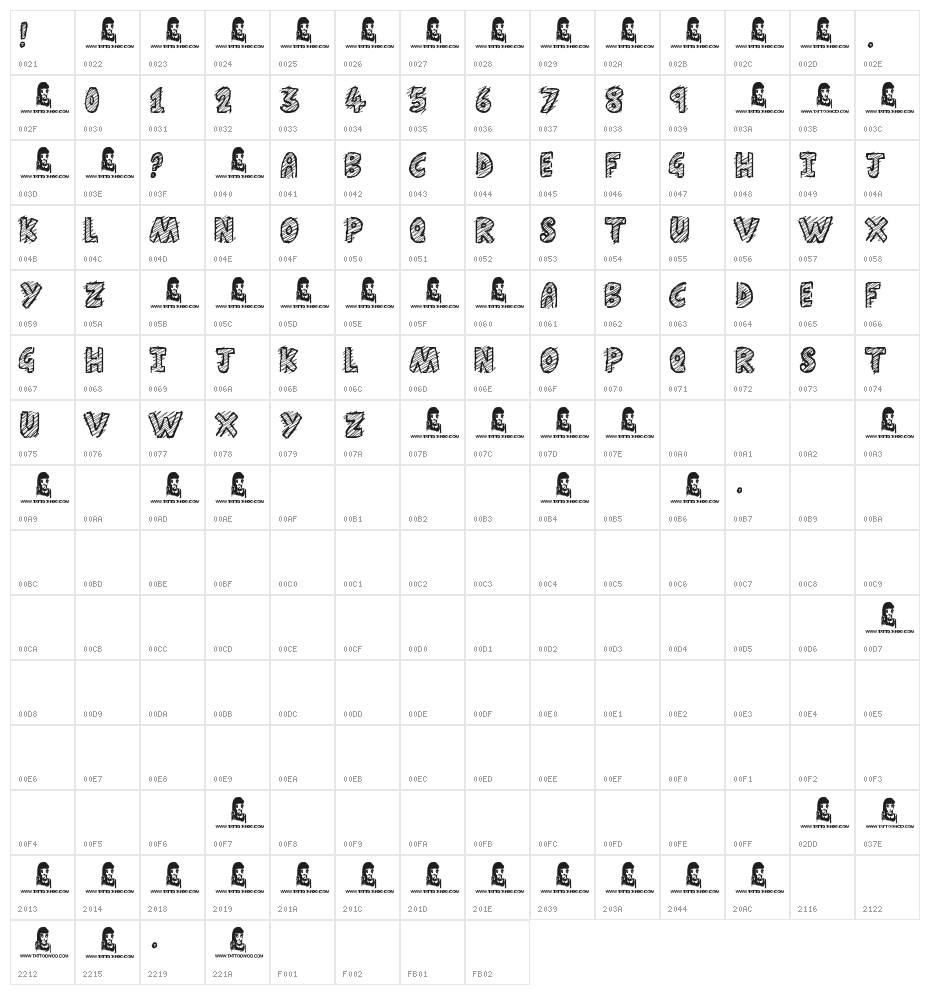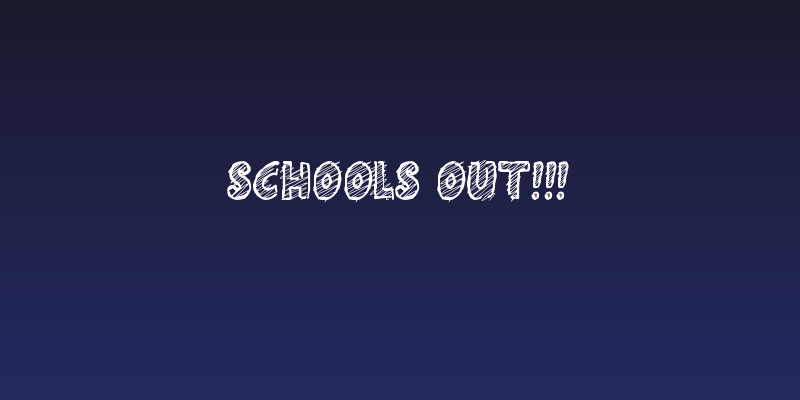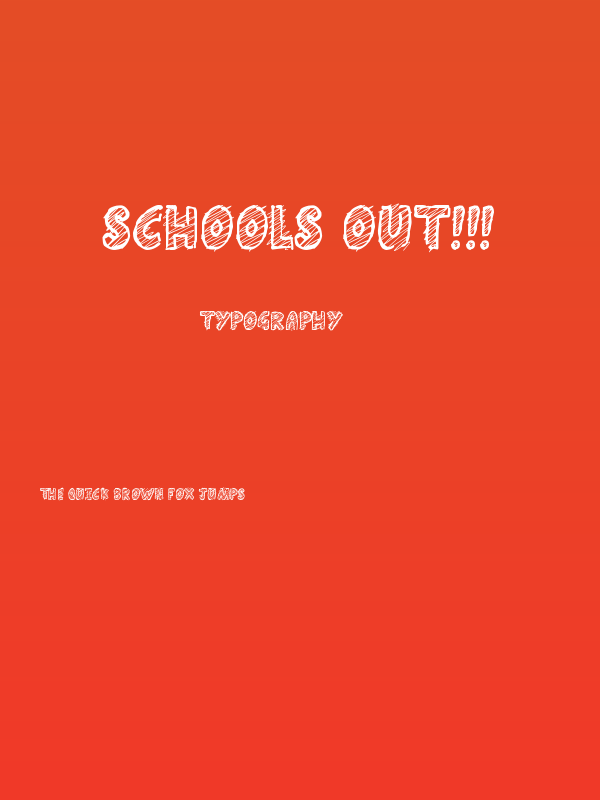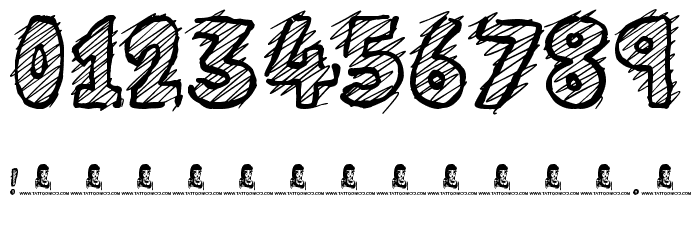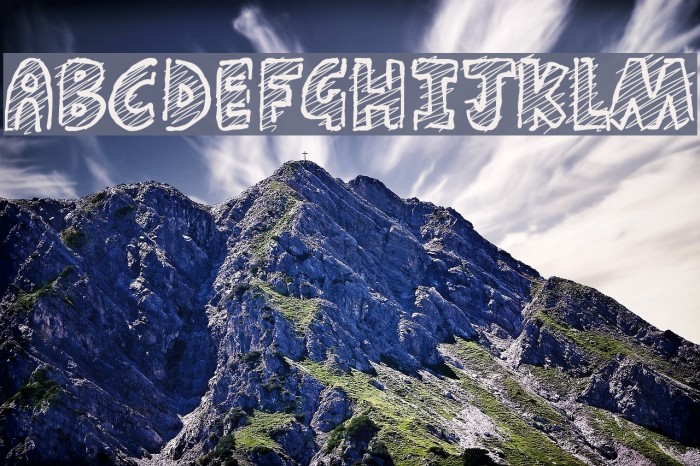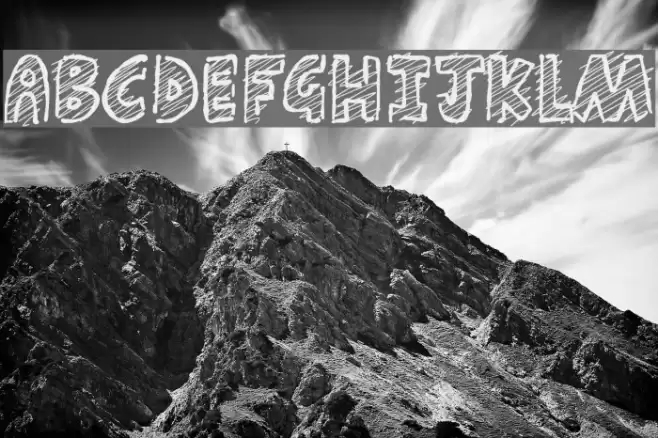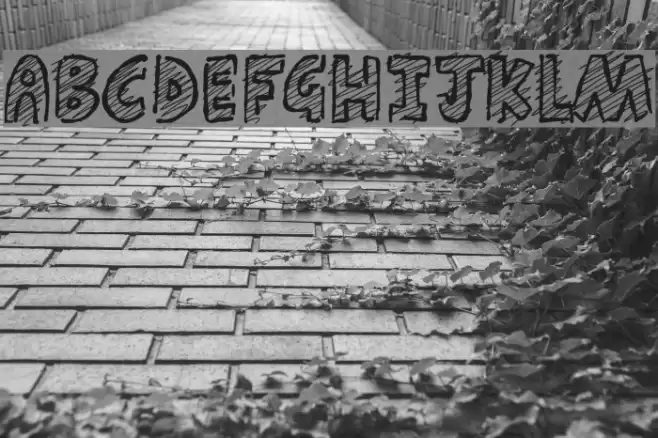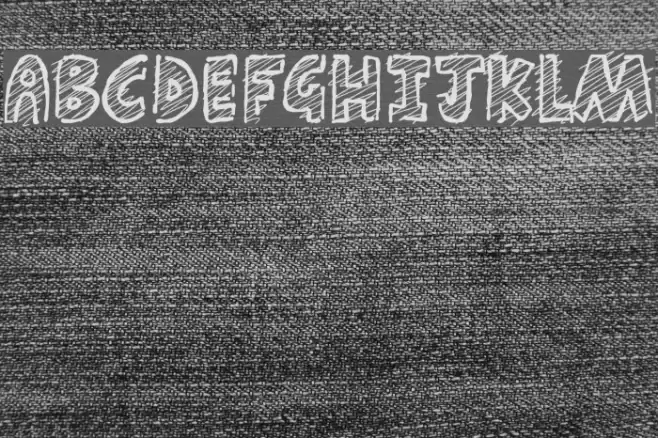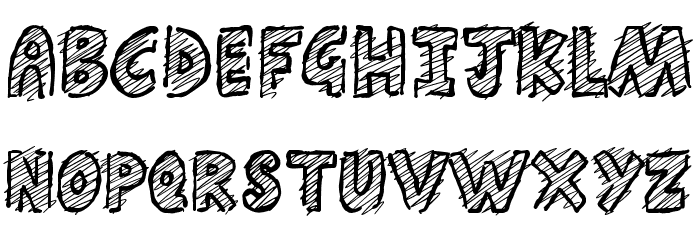
Schools Out!!! Font
Schools Out!!! Description
This font features a playful, hand-drawn style with a sketch-like appearance. Each character is filled with a scribbled texture, giving it a casual and artistic look. The letters are bold and slightly irregular, adding to the informal and fun aesthetic. The overall design is reminiscent of doodles or chalkboard writing, making it ideal for projects that require a whimsical or creative touch. The font includes uppercase and lowercase letters, numbers, and a selection of special characters, all maintaining the same textured style.
| Overall Style | Playful, Artistic |
| Use Case | Headlines, Posters, Creative Projects |
| Proposed Projects | Ideal for children's book covers, school event posters, creative invitations, and playful branding materials. |